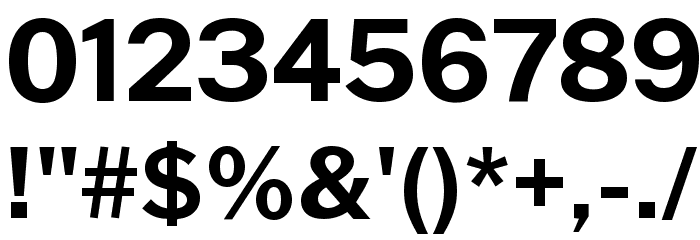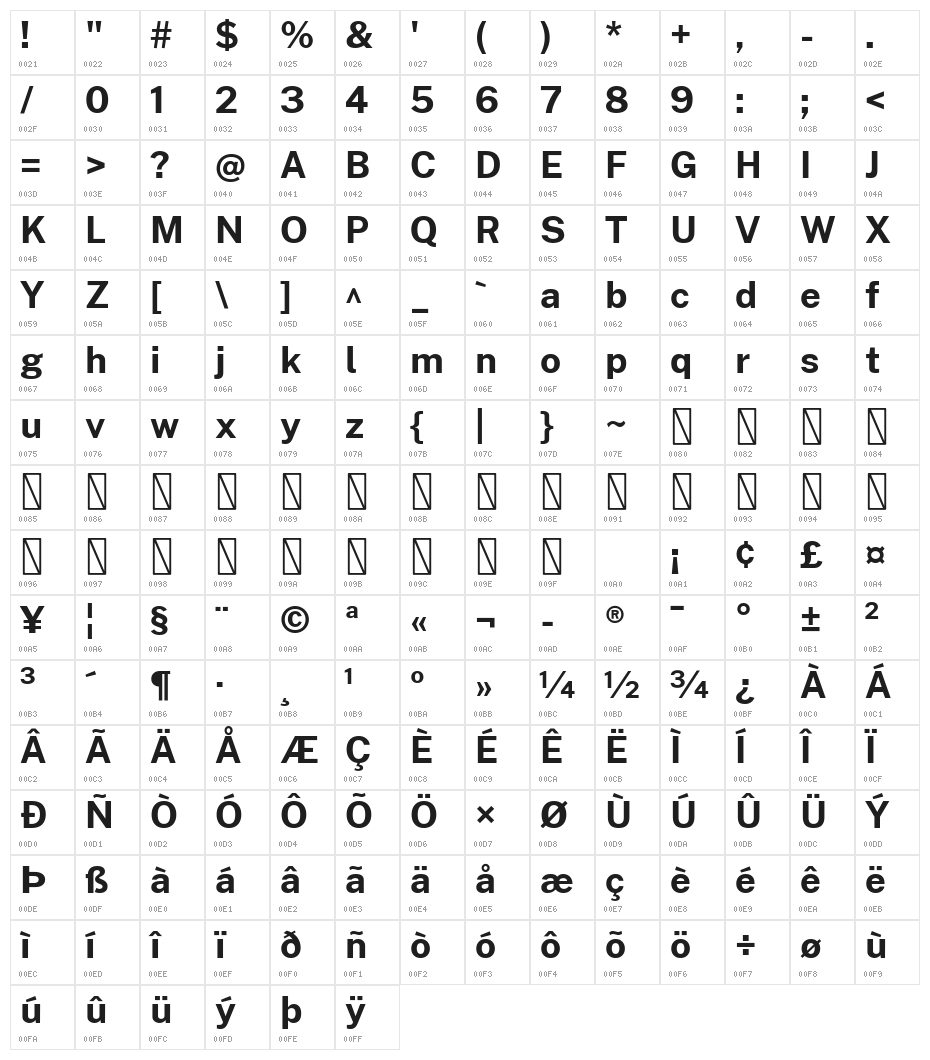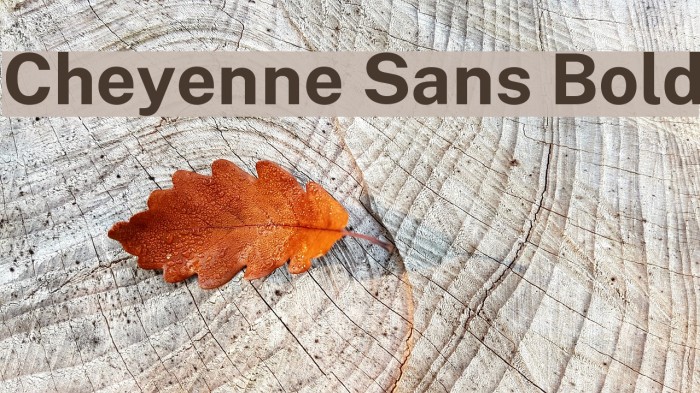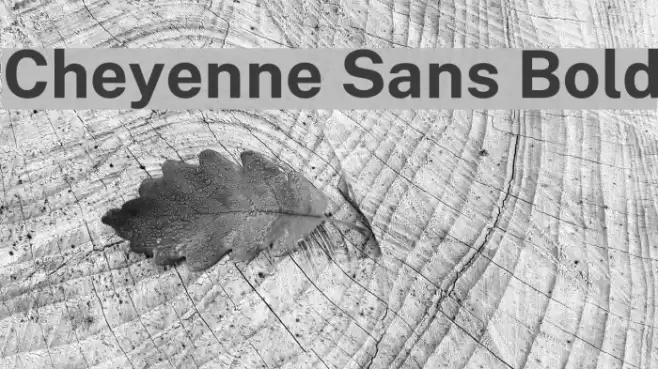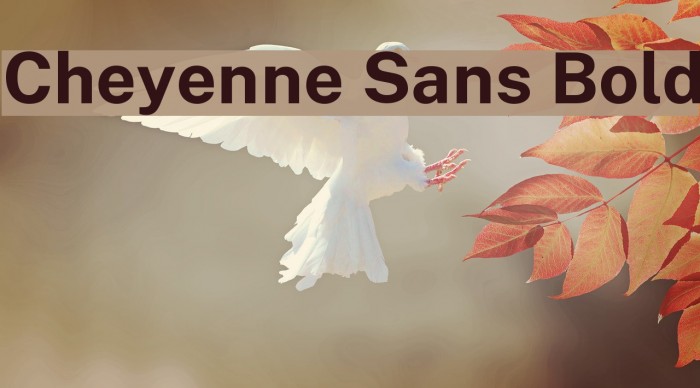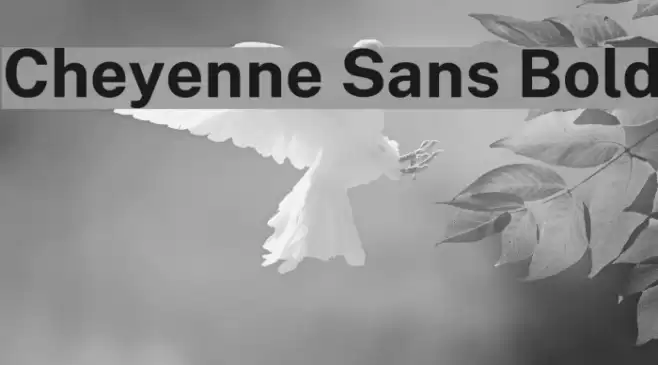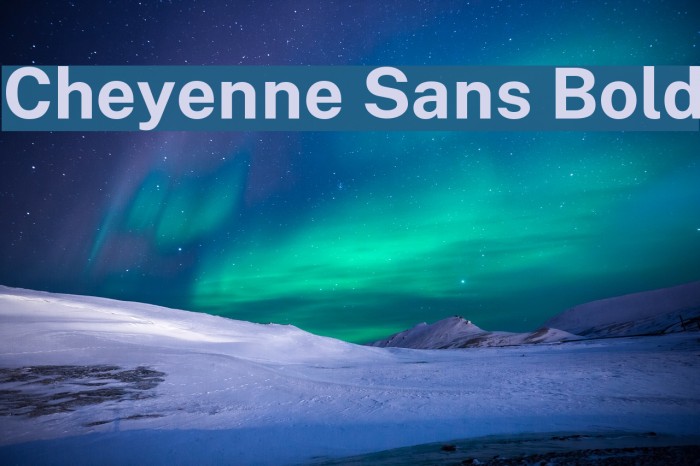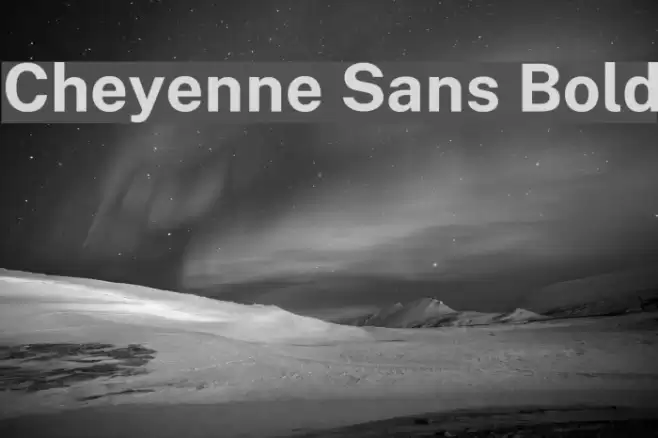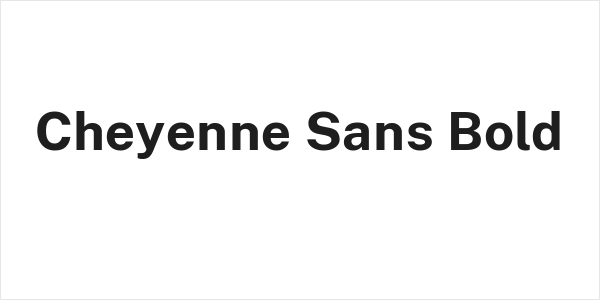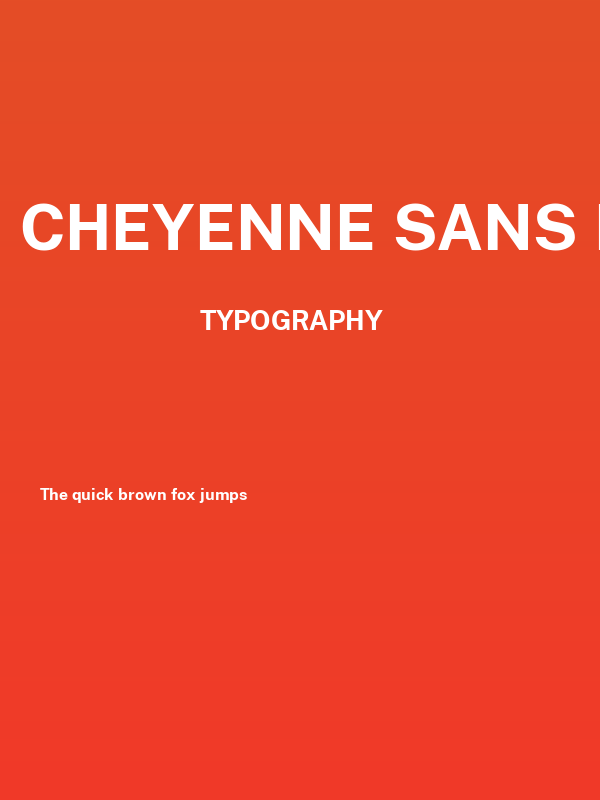
Cheyenne Sans Bold Font
Cheyenne Sans Bold Description
This typeface exhibits a bold and clean design, characterized by its sans-serif style. The letters are uniform in weight, providing a strong and modern appearance. The uppercase and lowercase letters are well-proportioned, with a consistent stroke width that enhances readability. The numerals are clear and distinct, matching the overall boldness of the alphabet. Special characters are included, maintaining the same bold and straightforward aesthetic. This font is versatile, suitable for various applications where clarity and impact are essential.